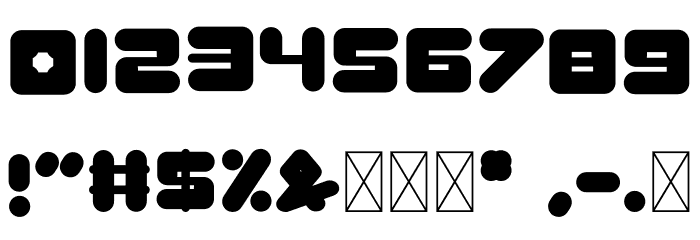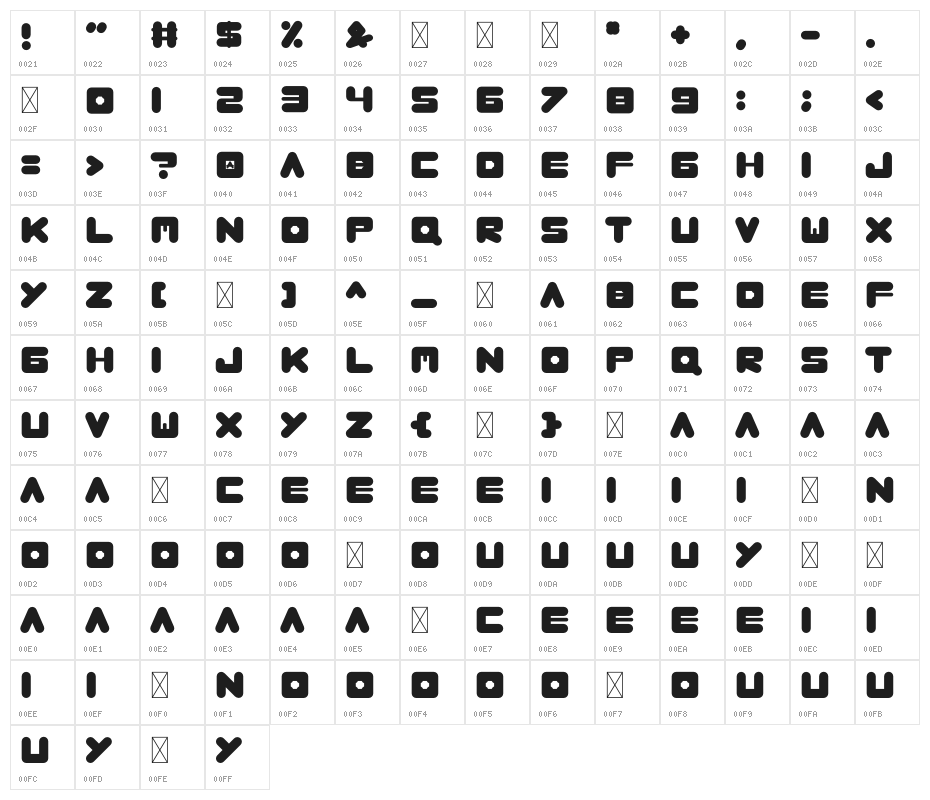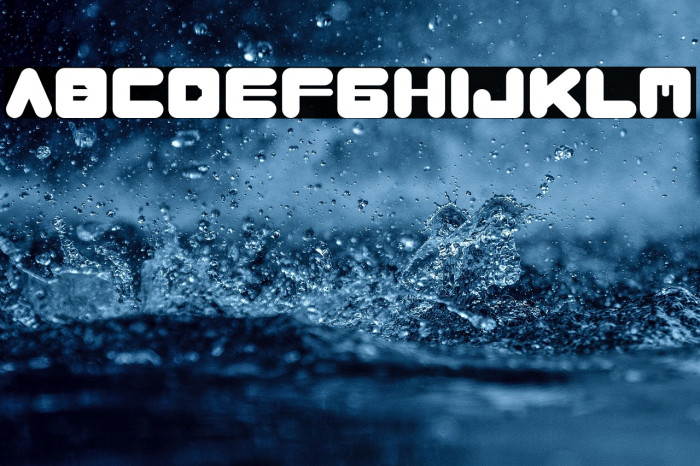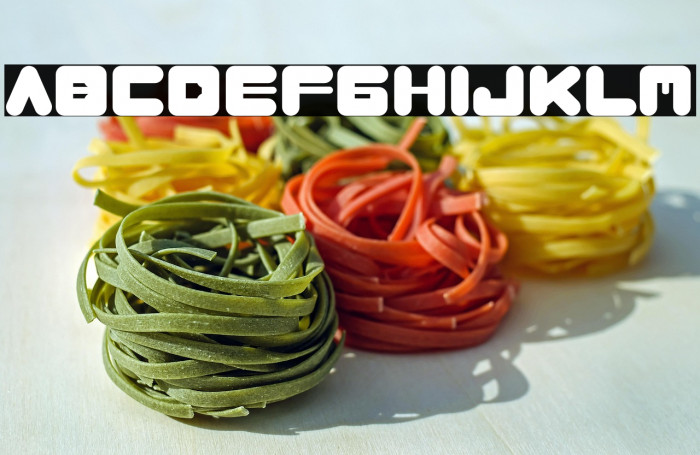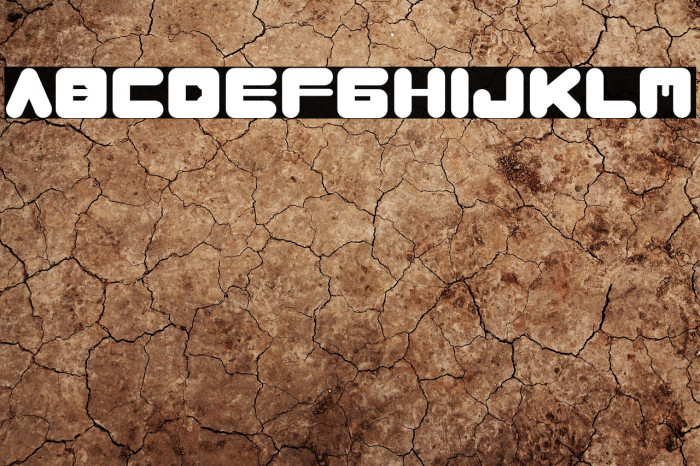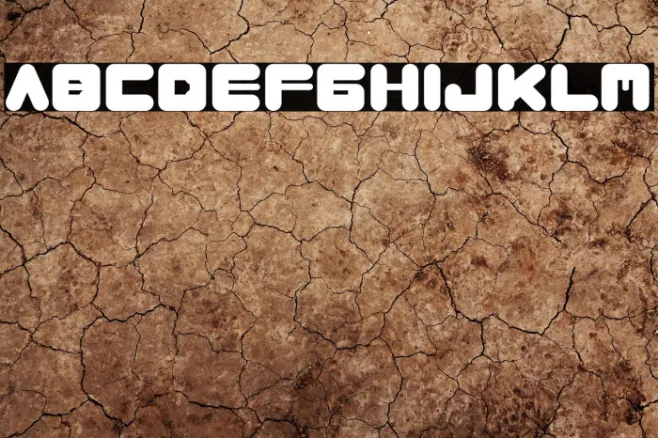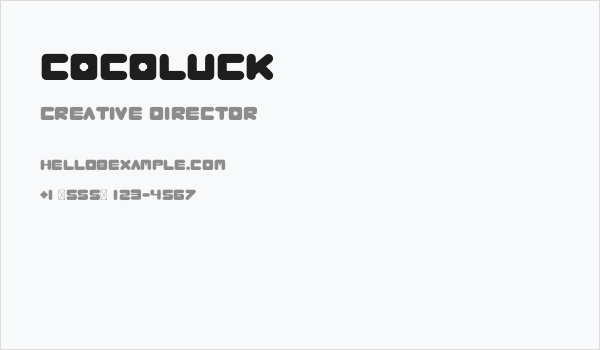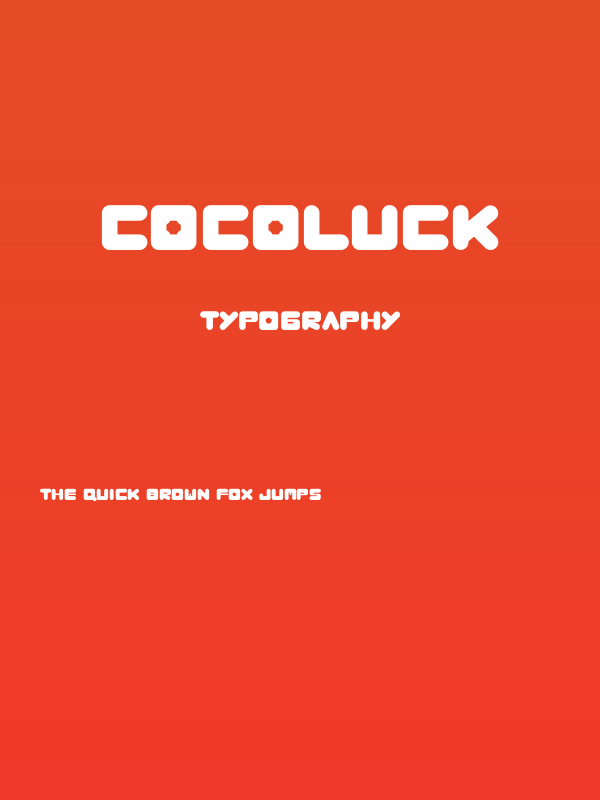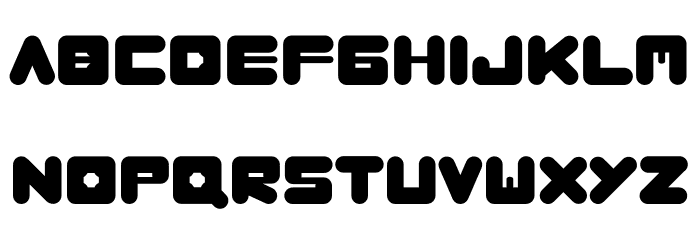
Cocoluck Font
Cocoluck Description
This font features a bold, geometric design with rounded edges, giving it a modern and playful appearance. The characters are uniformly thick, creating a strong visual impact. The uppercase and lowercase letters maintain a consistent style, with a slight variation in size and shape to distinguish them. Numbers and special characters are designed to match the overall aesthetic, ensuring a cohesive look across all text elements. The font's boldness and unique style make it suitable for attention-grabbing designs.
| Proposed Projects | Ideal for branding, posters, headlines, and any project requiring a strong, modern aesthetic. |